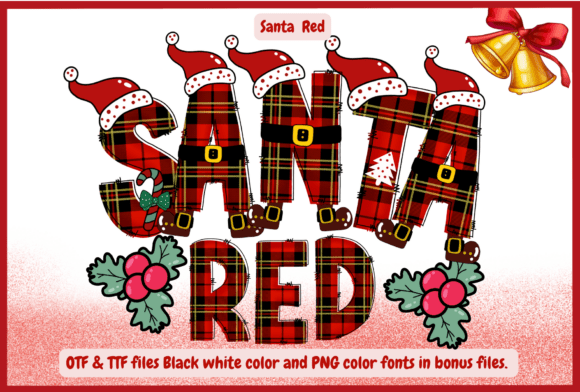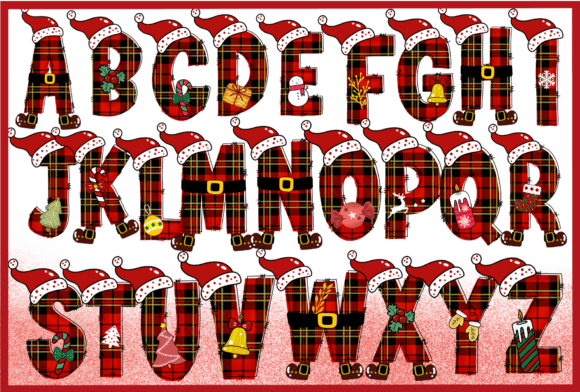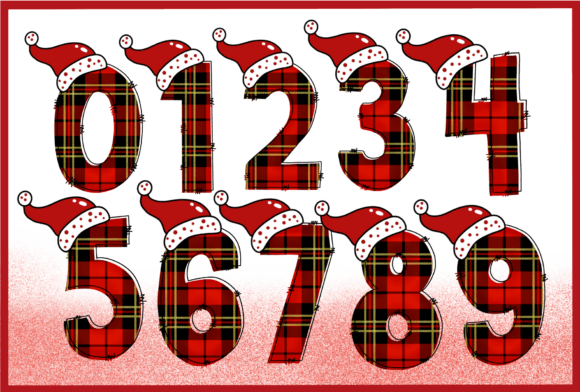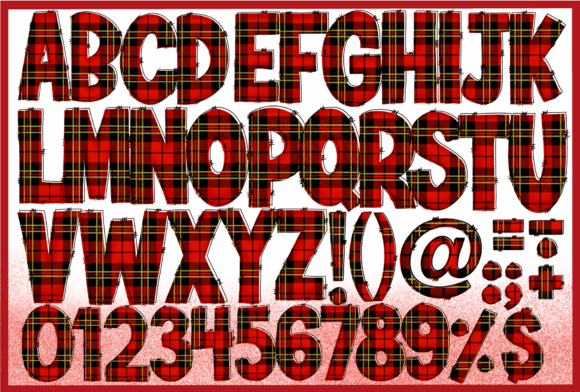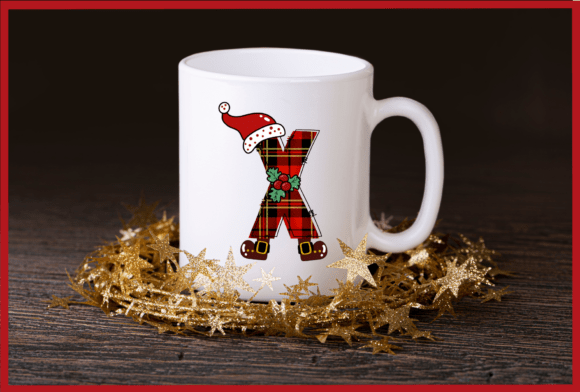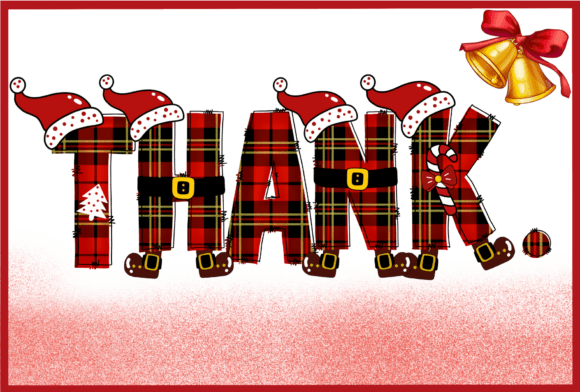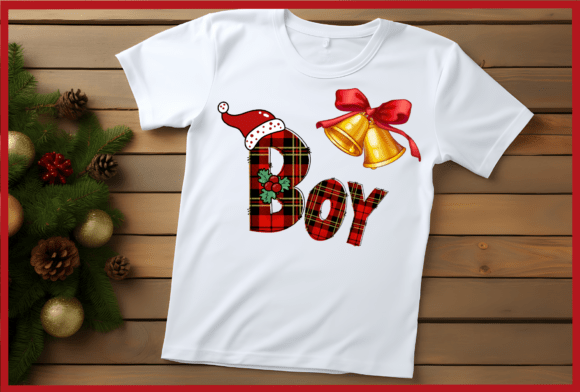
Santa Red Font
🎅 Santa Red – A Festive Plaid Christmas Font
Bring the joyful spirit of the holidays to your designs with Santa Red, a cheerful plaid decorative font bursting with Christmas charm!
Each letter is designed with delightful red tartan textures, Santa hats, belts, and candy cane accents, instantly adding a cozy, festive feel to your creative projects.
Ideal for:
✨ Christmas cards, invitations, and banners
🎁 Holiday branding, packaging, and apparel design
🍬 DIY crafts, mugs, stickers, and gift tags
Let your holiday projects sparkle with the warmth and whimsy of Santa Red — the perfect font to make your Christmas creations unforgettable!